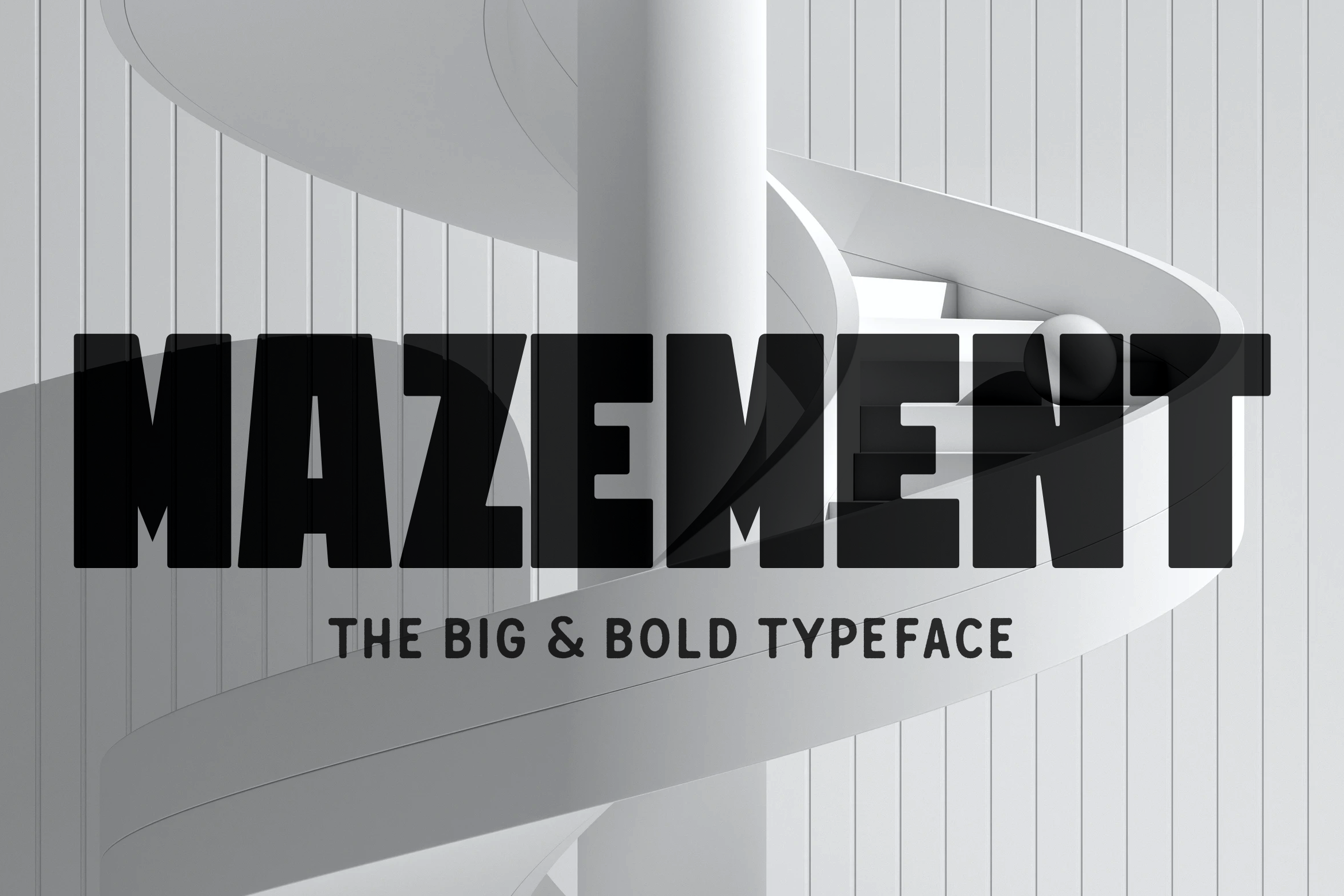
Mazement
Mazement is a display sans font family. This typeface has two styles and was published by Great Scott.
Mazement is a big and bold typeface with over 300 glyphs and support for lots of latin languages. Amazement is very chunky and heavy and wants to take up space.
The bigger – The better. Optimal use for display and headlines. Remember: Bigger is better.